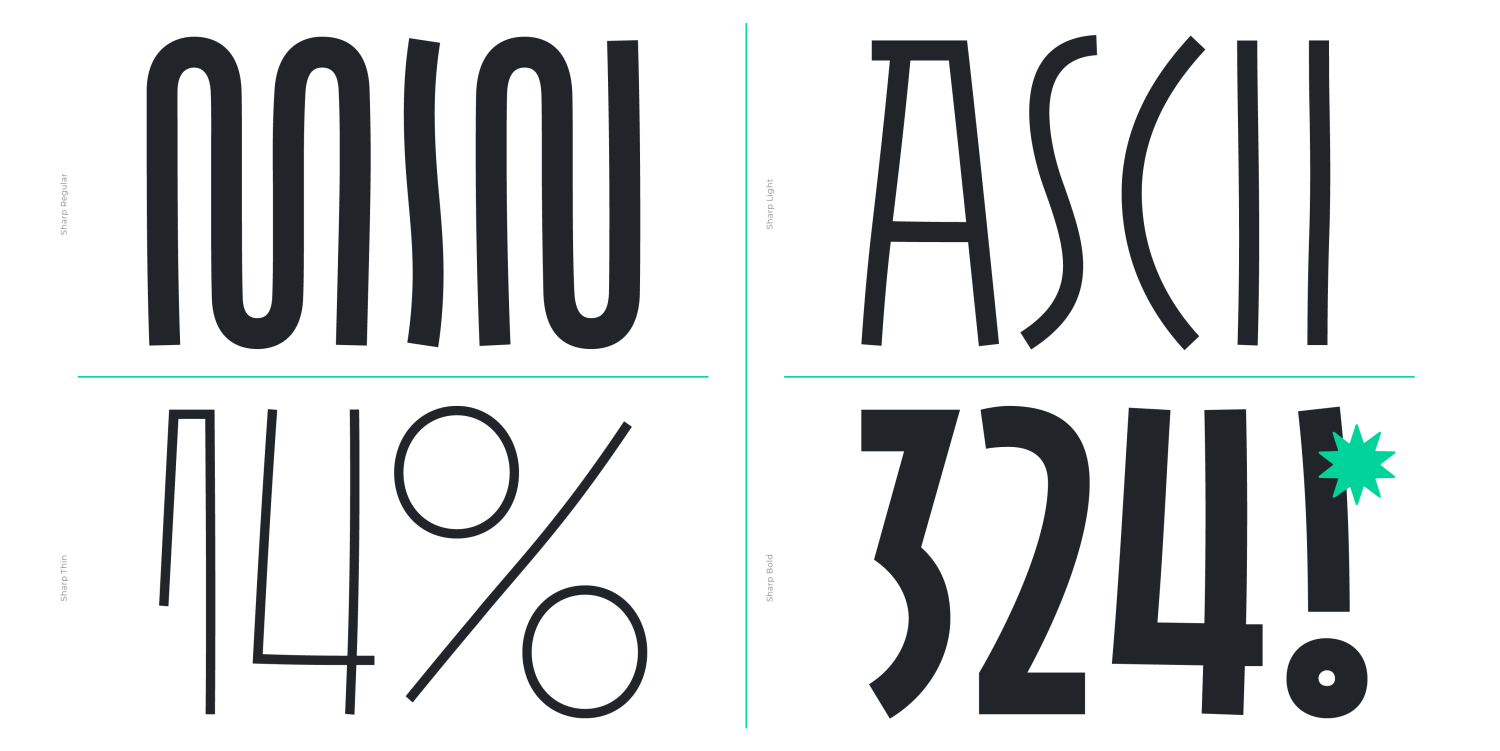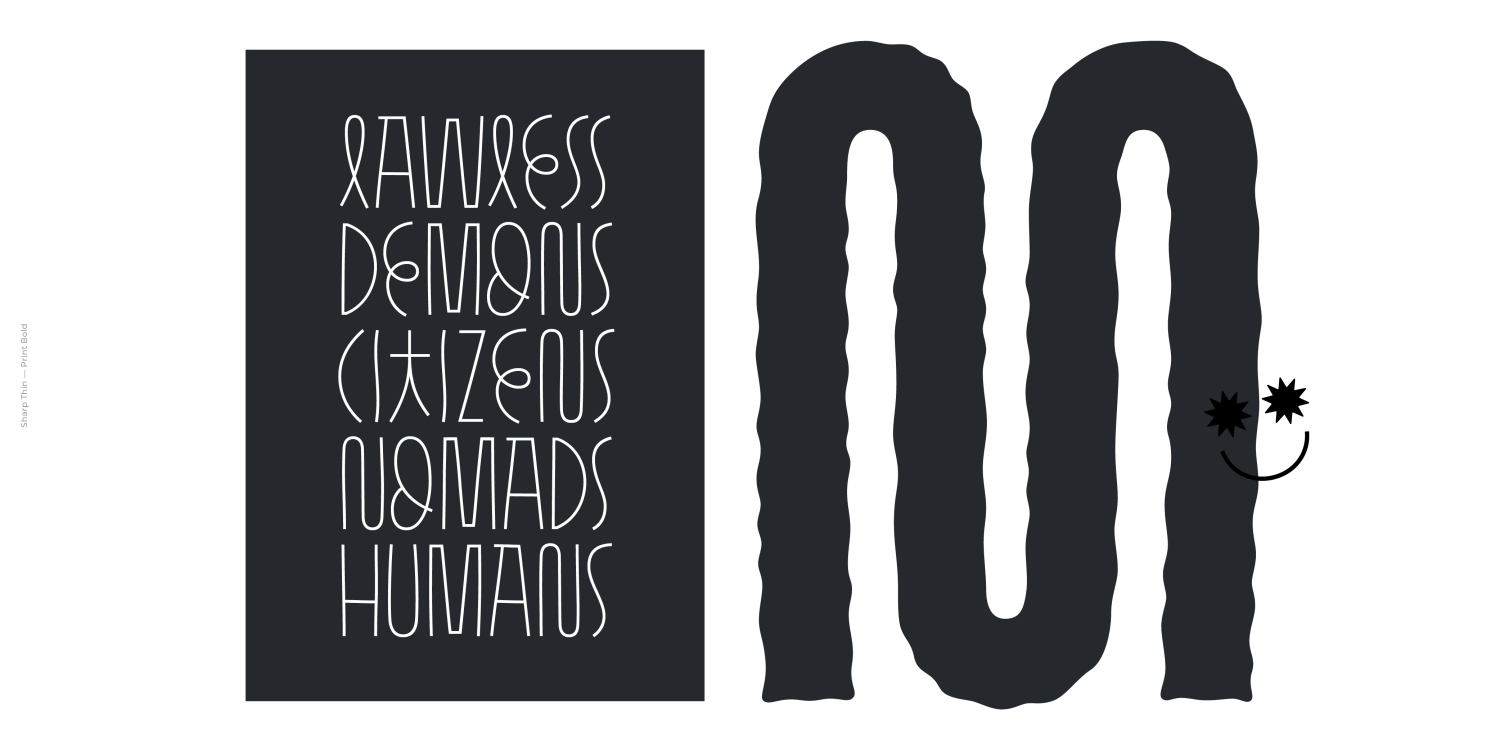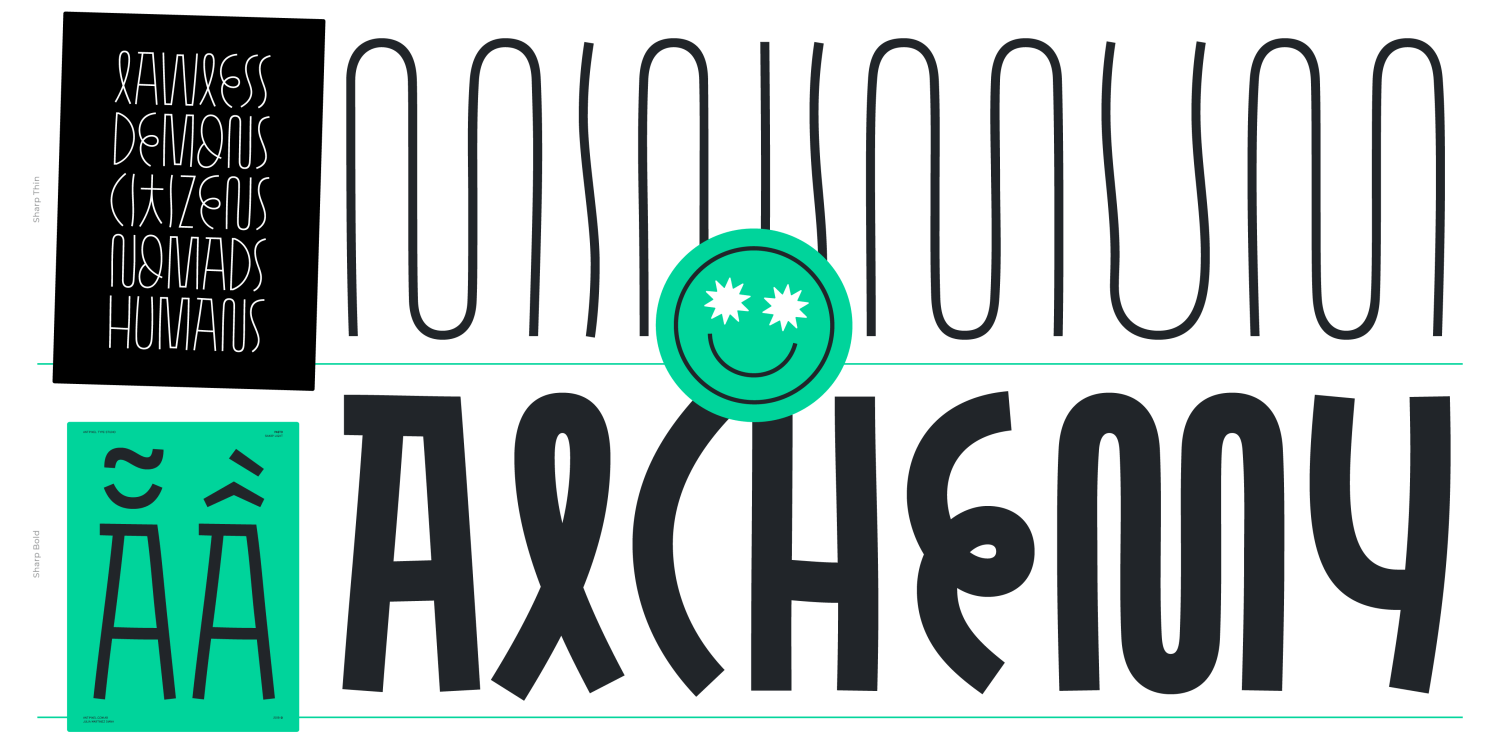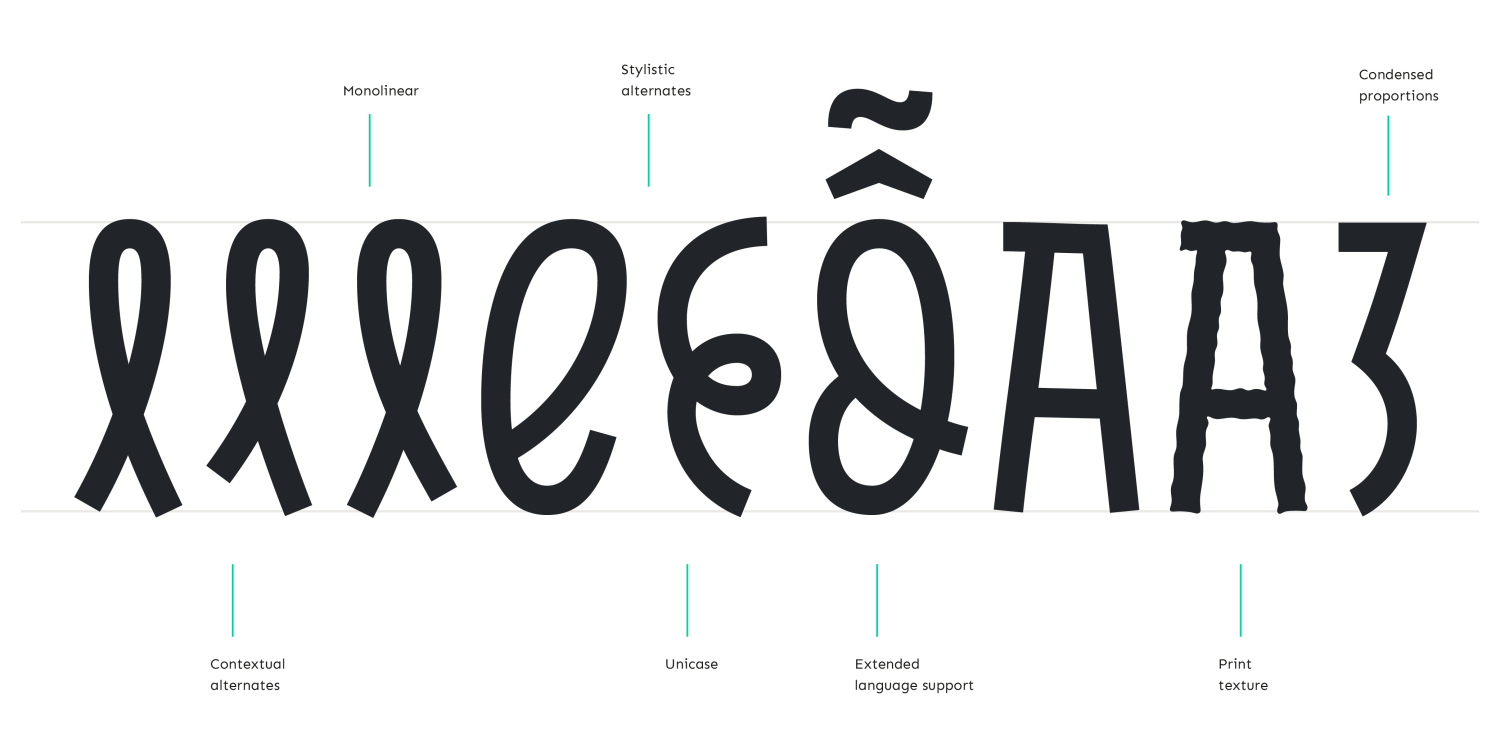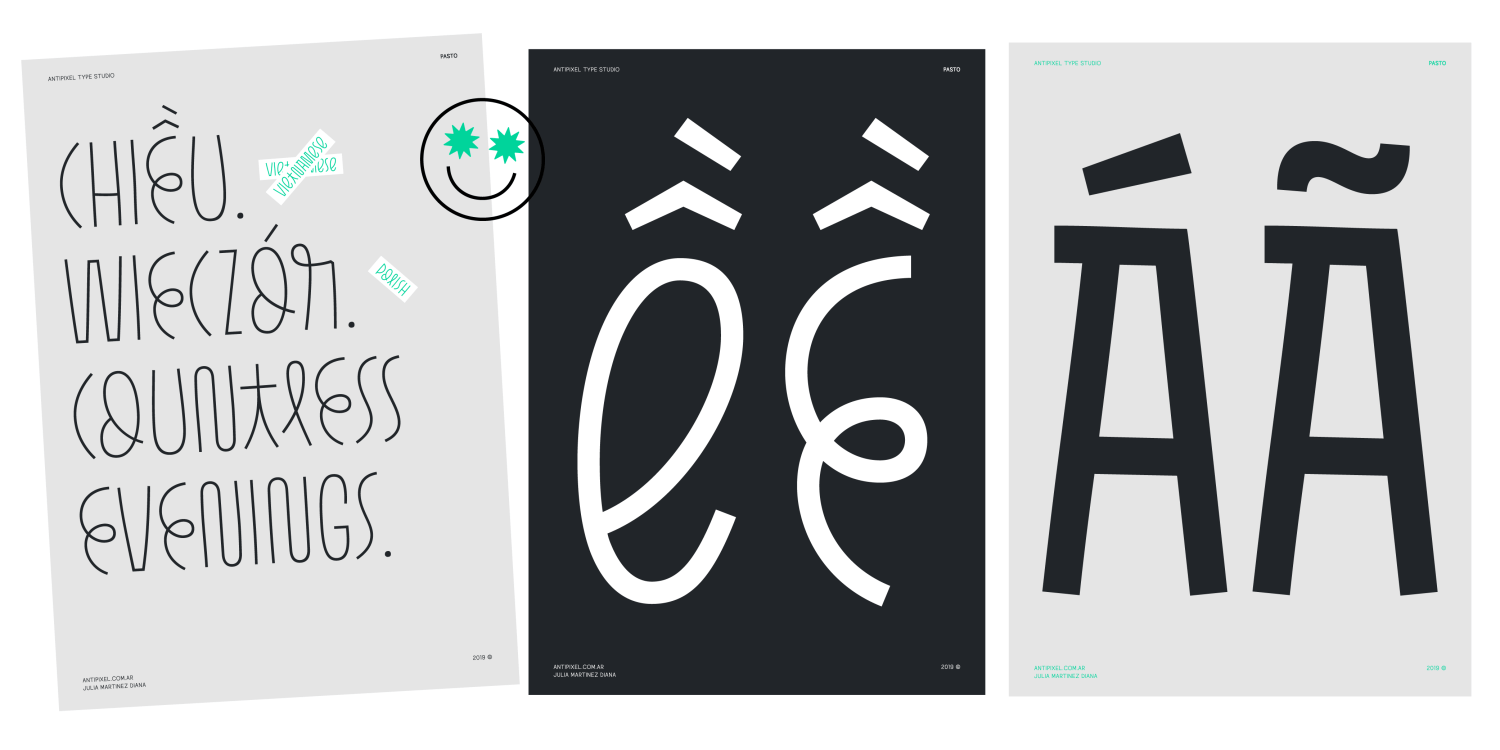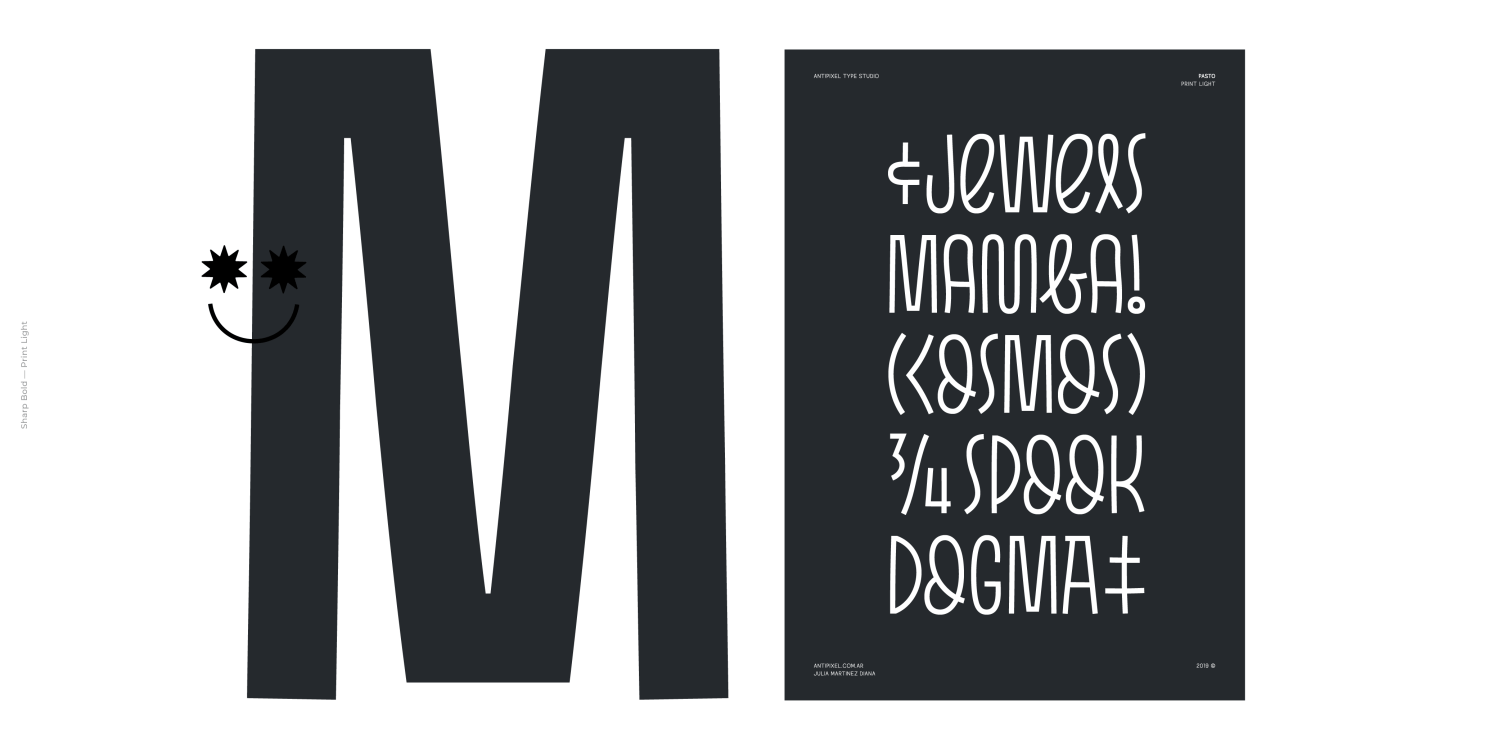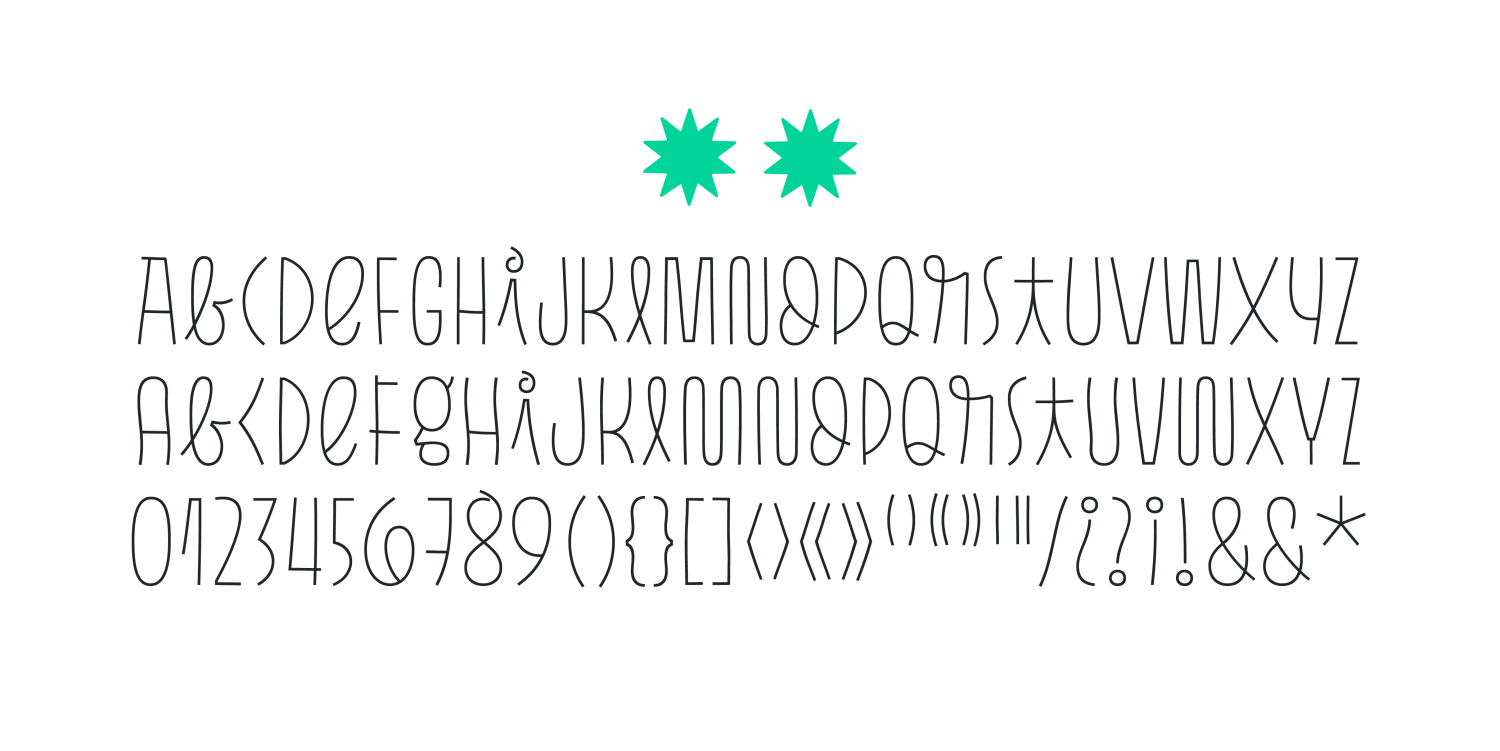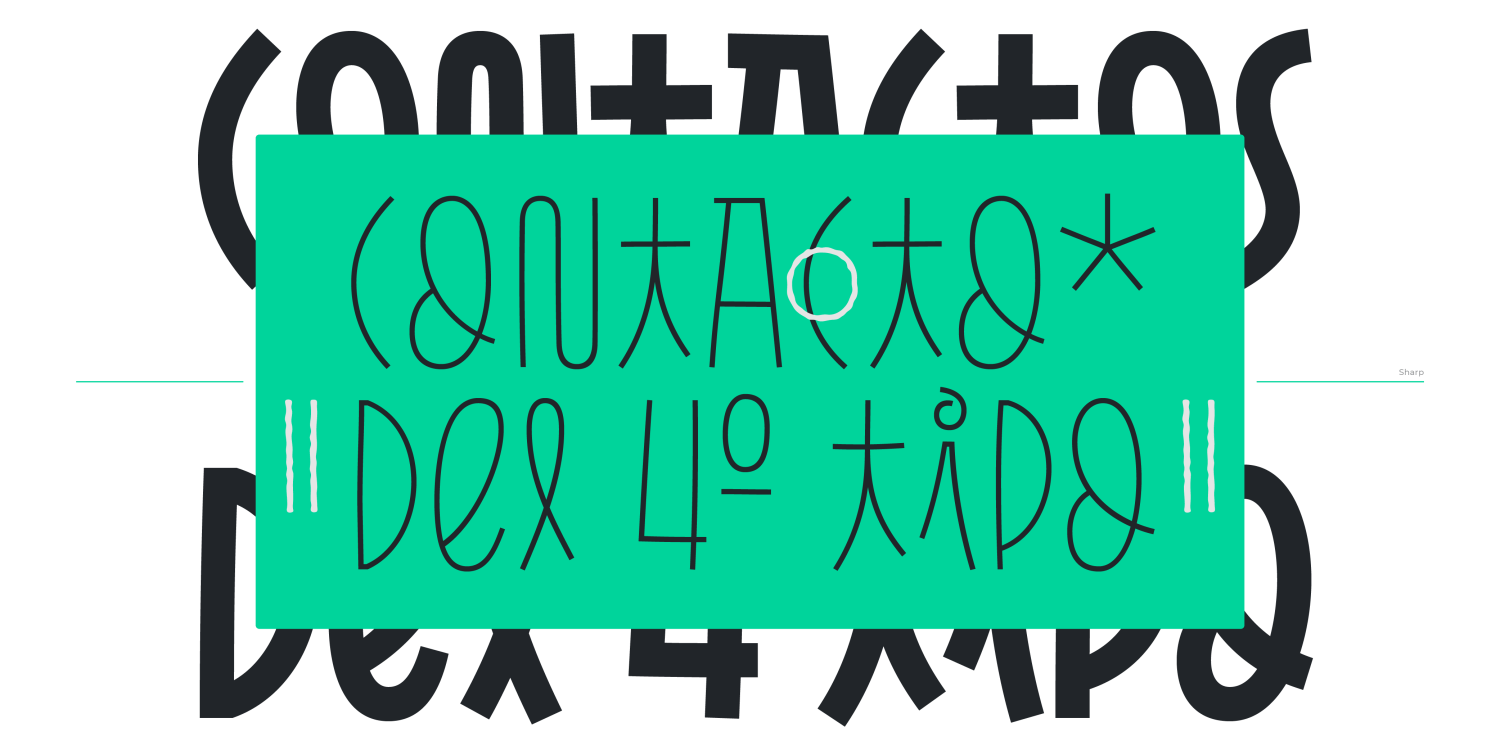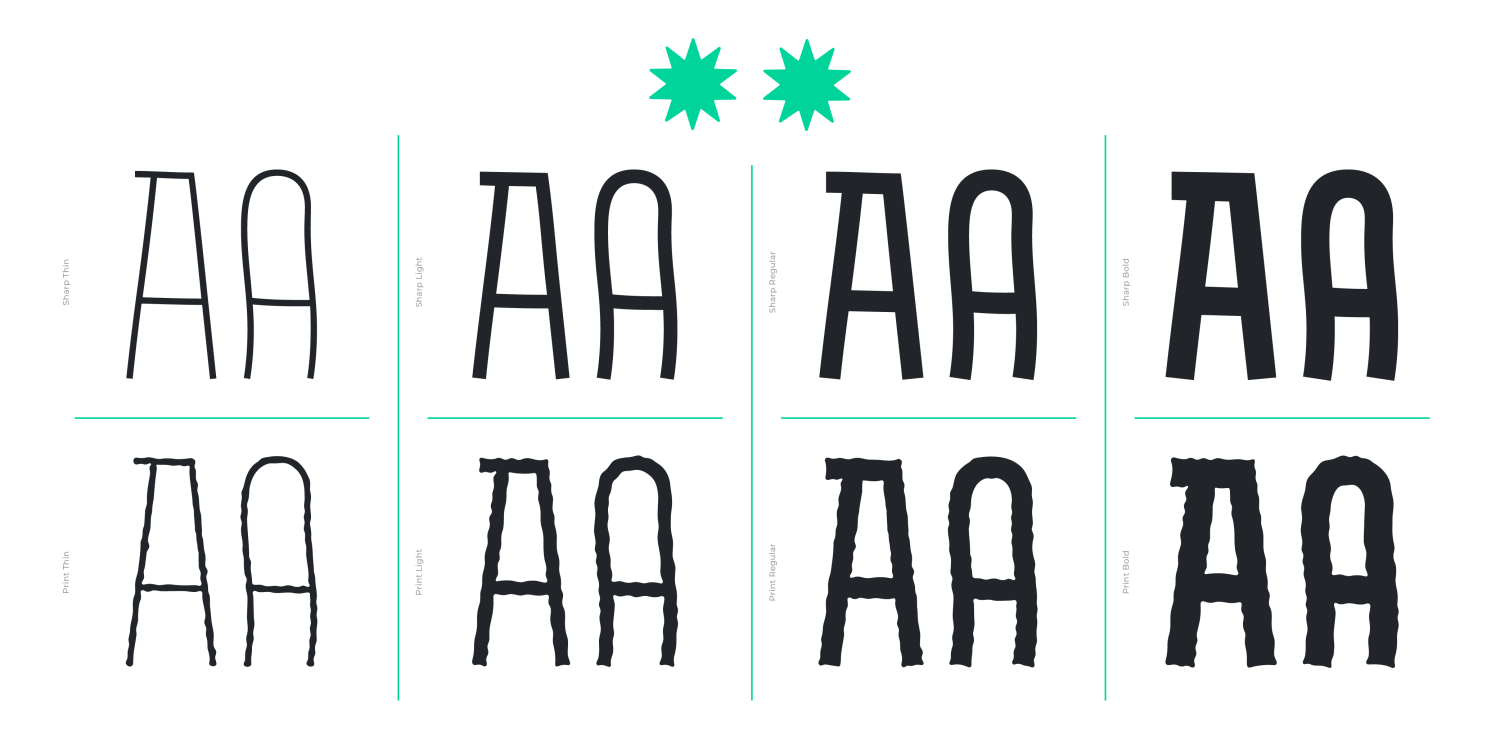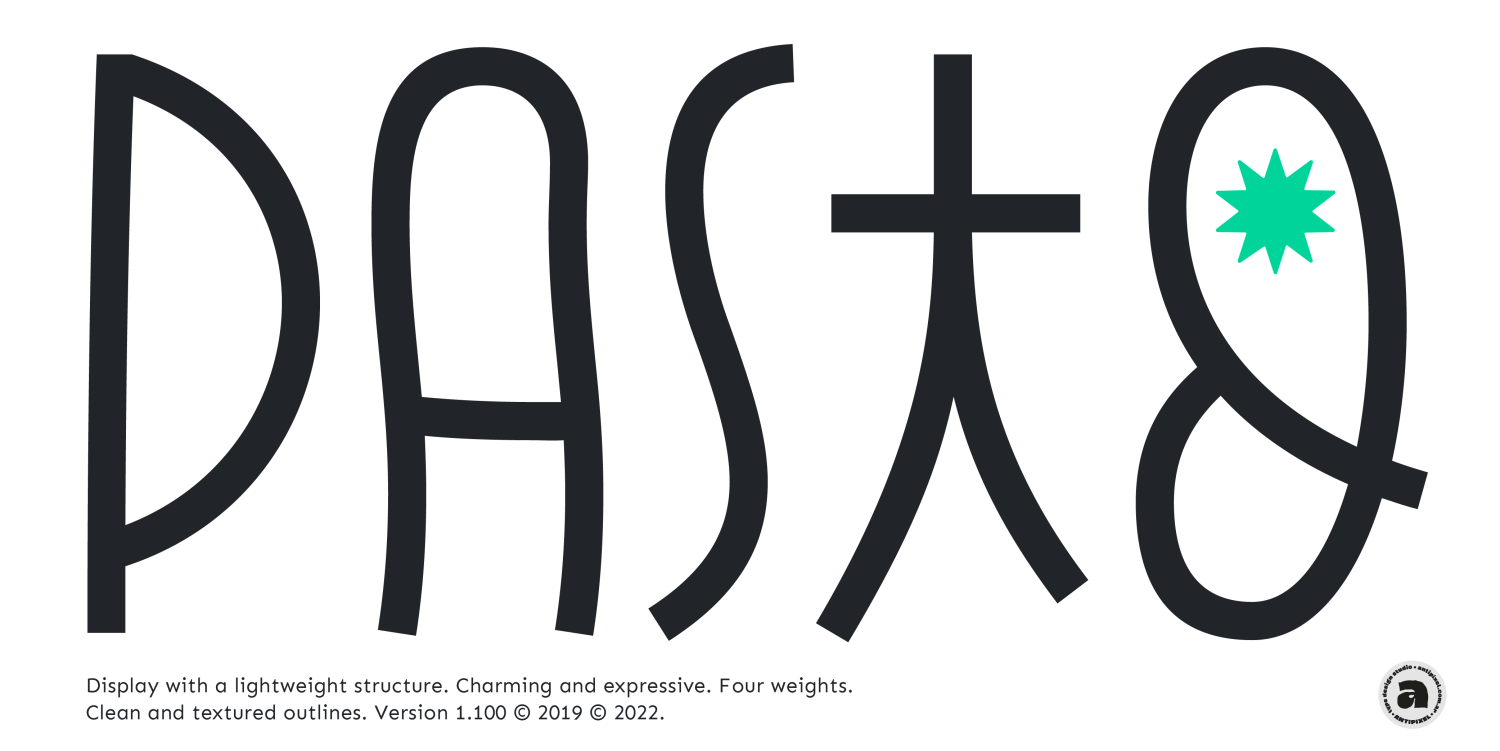
Pasto
About Pasto
Pasto is a fun and charming display type family of two styles with four weights each. 'Print' is a textured irregular stamp style, and 'Sharp' is a straightforward soft-edged type with clean strokes. It is clean, playful,…